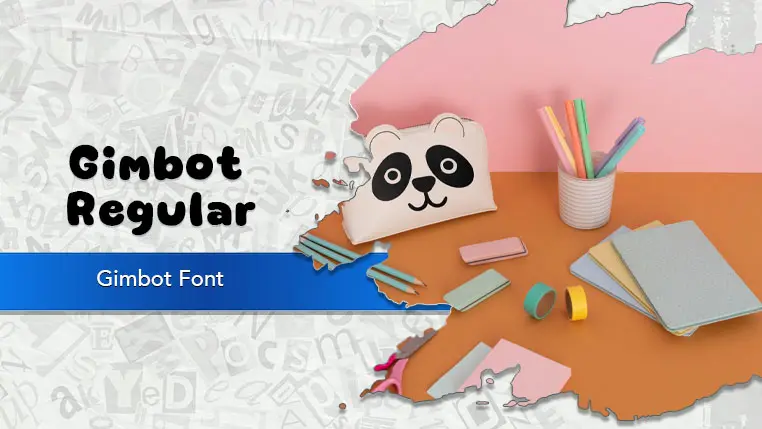
The Gimbot font family may be ideal for you if you enjoy working on an artistic design project. The lively, expressive look of this typeface, which was created by Khurasan, makes it ideal for Children's Media and Products, Branding and Logos for Playful Businesses. Its bold and bouncy appearance makes it excellent for headlines in posters, flyers, advertisements, social media graphics, and website banners where you want to grab attention with charm. Its vibrant and inviting visual punch is perfect for creating engaging and shareable content on platforms like Instagram, Facebook, and TikTok. and other light-hearted visual projects.
Regular are the one primary font styles of the Gimbot font family. You may build dynamic, visually appealing text layouts with the distinct flair that each style offers. With crisp, readable lines and a relaxed tone.